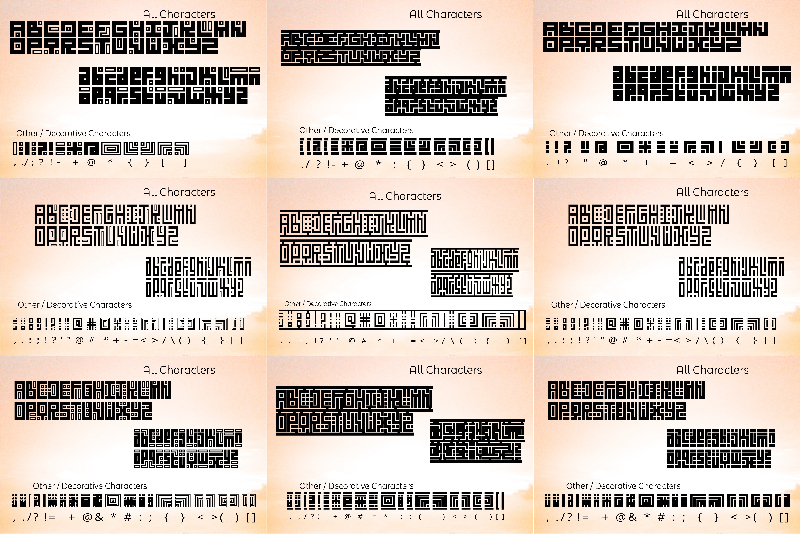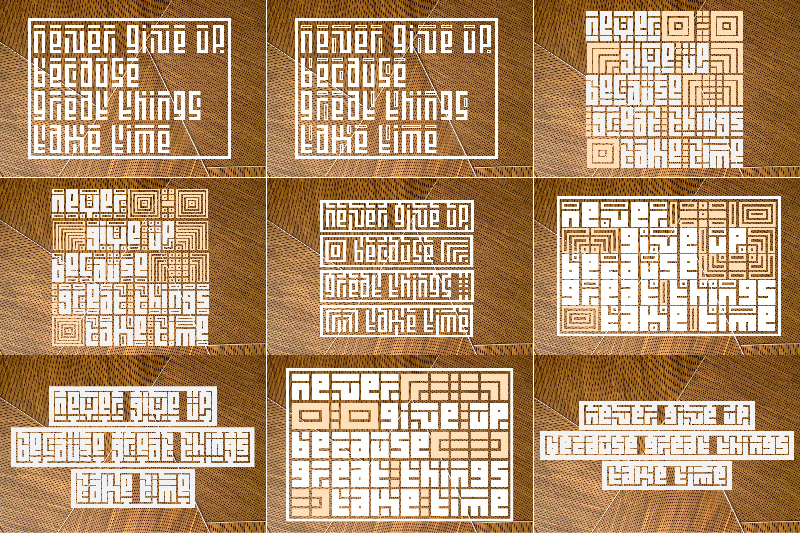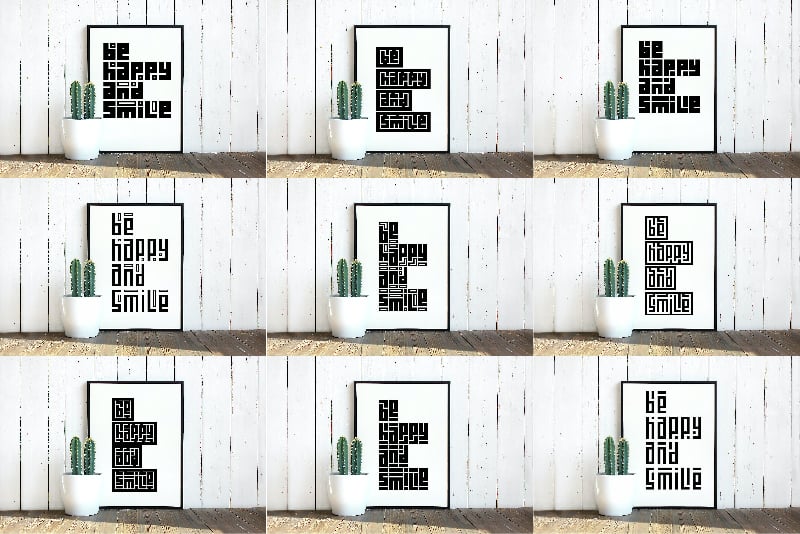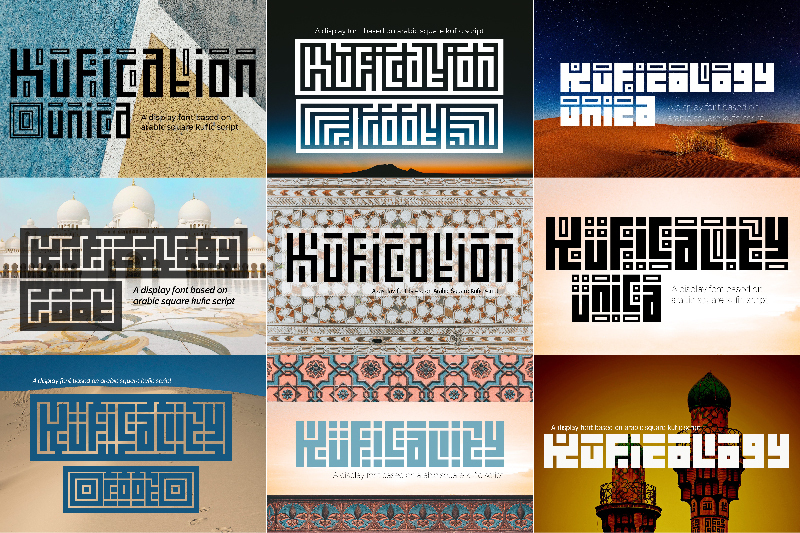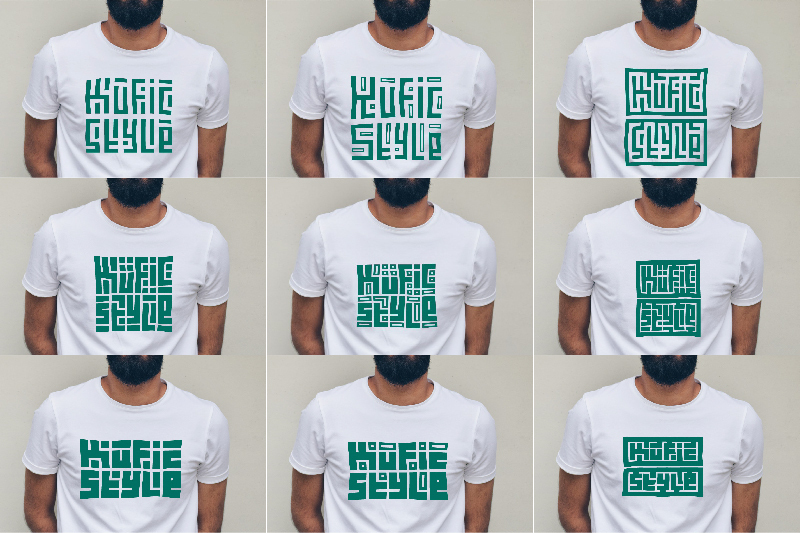
Arabic Square Kufic Font Bundle
Introducing the Kufic Font Bundle! This bundle is full of arabic square kufic fonts. You can check every fonts in its own page :
Kufic Font Bundle is a collection of fonts inspired by Arabic square calligraphy. It's great as logos for business and personal identity. Unique design for your business in a few seconds.
Kufic Font Bundle gives an elegant and classic impression but is still modern with a straight square cut in each letter.
Kufic Font Bundle is suitable for various themes, but more specifically in Islamic themes. Widely used by Muslims to create texts in latin with kufic calligraphy style.
These fonts are also perfect for quotes, headings, logos, invitations, social media posts, profile pictures, advertisements, product packaging, product designs, label, photography, watermark, special events and more!
Full characters include upper and lowercase, letters, numbers, symbols and several decorative characters.